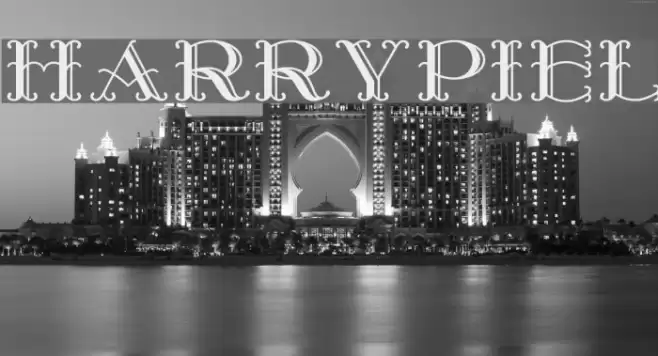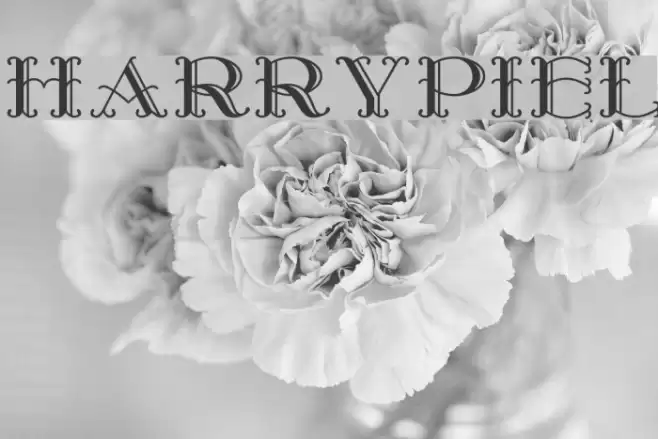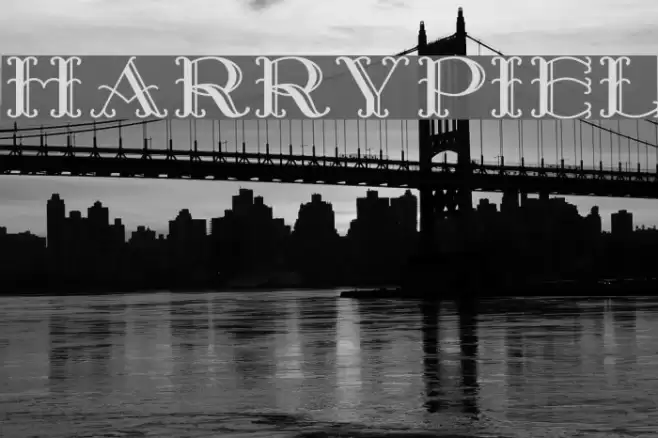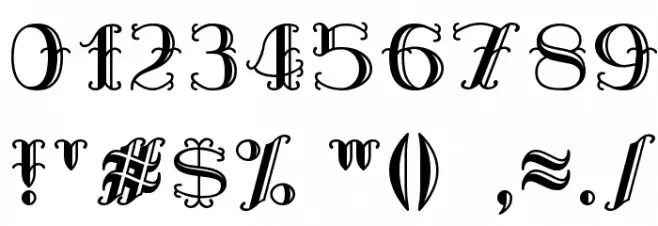
HarryPiel Font
HarryPiel Description
This font features an ornate and decorative style, characterized by intricate flourishes and embellishments on each character. The uppercase and lowercase letters maintain a consistent design, with elegant loops and swirls that add a touch of sophistication. The numerals and special characters are equally detailed, making them stand out with their unique and artistic flair. This font is ideal for projects that require a vintage or classic aesthetic, as it evokes a sense of timeless elegance and charm.
An ornate and decorative font with intricate flourishes from Uncategorized fonts.
- Proposed Projects: Ideal for wedding invitations, vintage-themed posters, branding for luxury products, and decorative book covers.
- Overall Style: Vintage